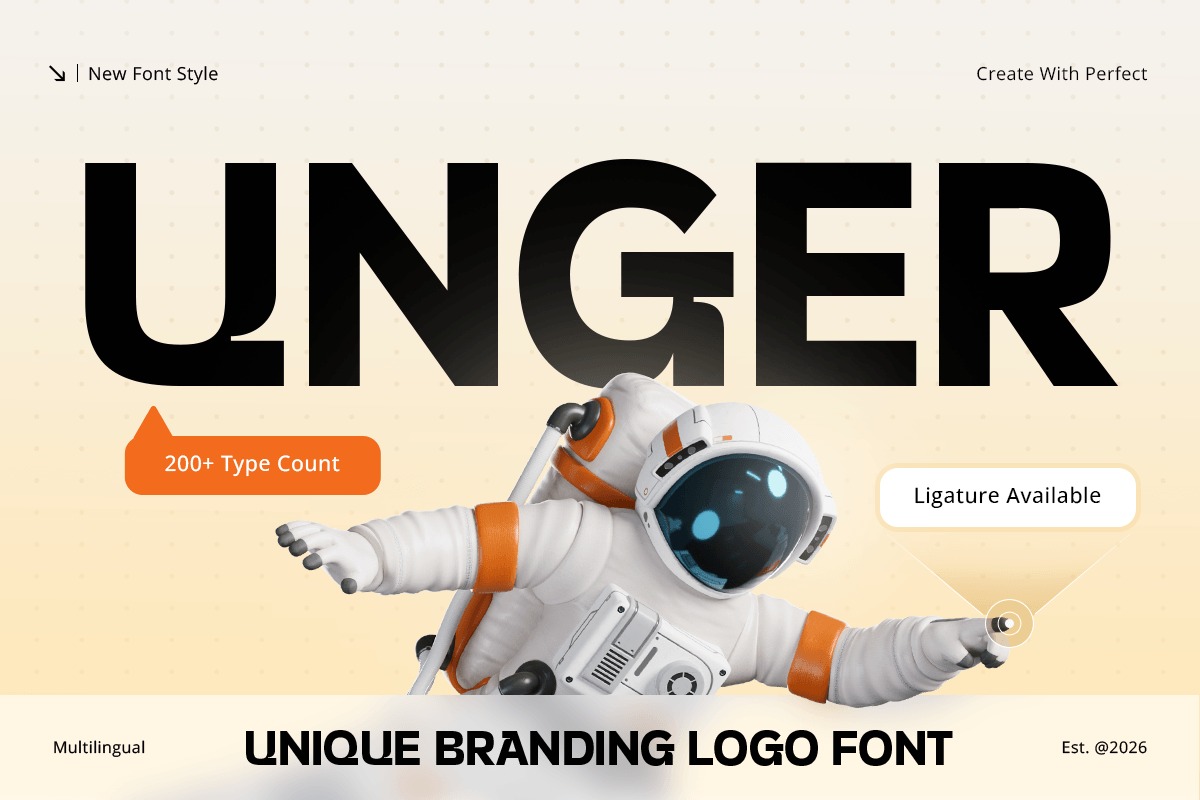
Unger – Geometric Sans Serif Font
UNGER – Geometric Sans Serif Font brings a balanced structure and contemporary look, making it suitable for both digital and print design. UNGER – Unique Branding Logo Font is a modern logo font crafted for branding, logotype creation, visual identity systems, and creative business projects. Designed to help brands stand out in competitive markets, UNGER combines distinctive letterforms with a professional structure to create memorable and recognizable brand experiences.
Inspired by contemporary branding trends and modern logo design, UNGER features unique character shapes, balanced proportions, and refined details that give every project a strong visual personality. This unique branding font is built to deliver clarity, originality, and versatility across both digital and print applications.
Whether you’re developing a startup identity, designing a premium logo, creating a modern brand system, or producing marketing materials, UNGER provides the distinctive typography needed to build a powerful and lasting impression.